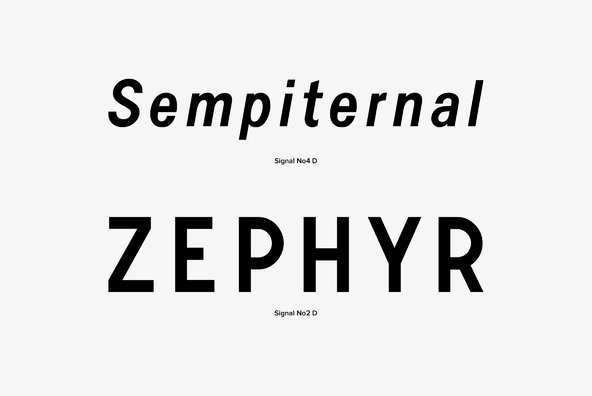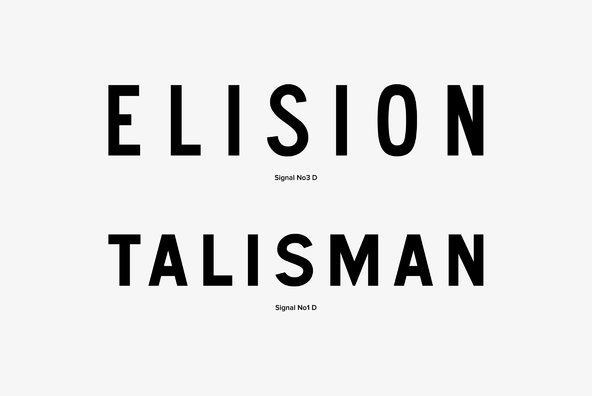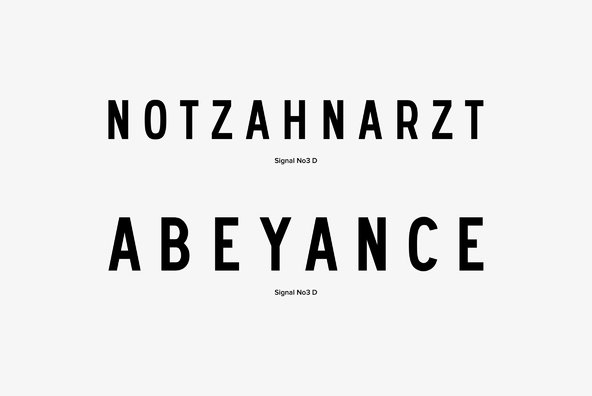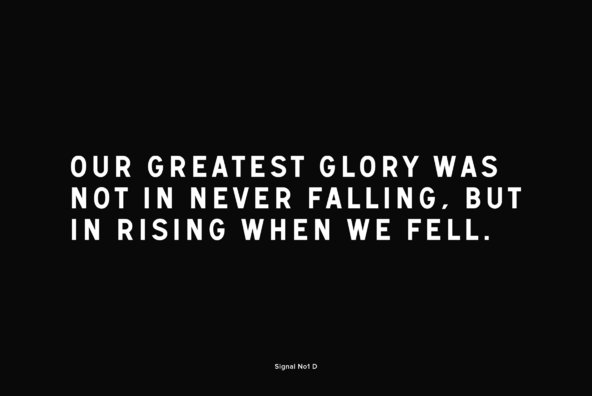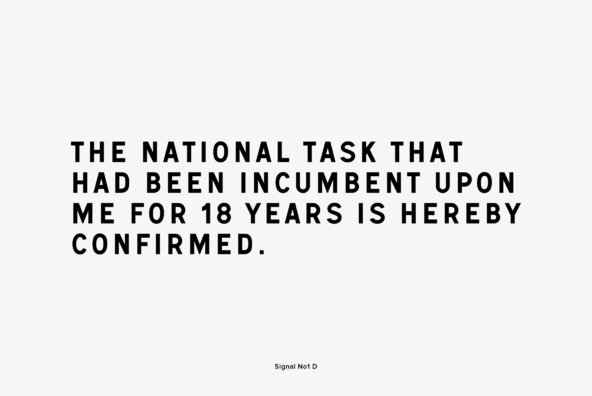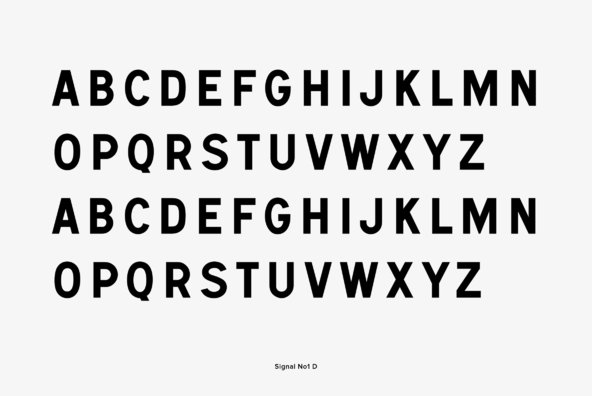
Whether road or railroad, air terminal or ferry terminal, URW Signal has the clean, simple authority to guide the way. This sleek beauty clearly directs both models on the fashion runway and planes on the airport runway, and also makes for top-notch, powerful poster headlines. Affordable, simple and smart without overwhelming the surrounding design--this Signal can be seen for miles.
Signal contains mostly all caps options, but the 'Signal No4 D' weight contains lowercase designs as well.